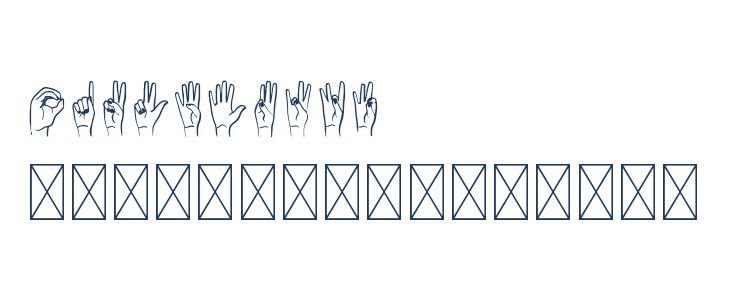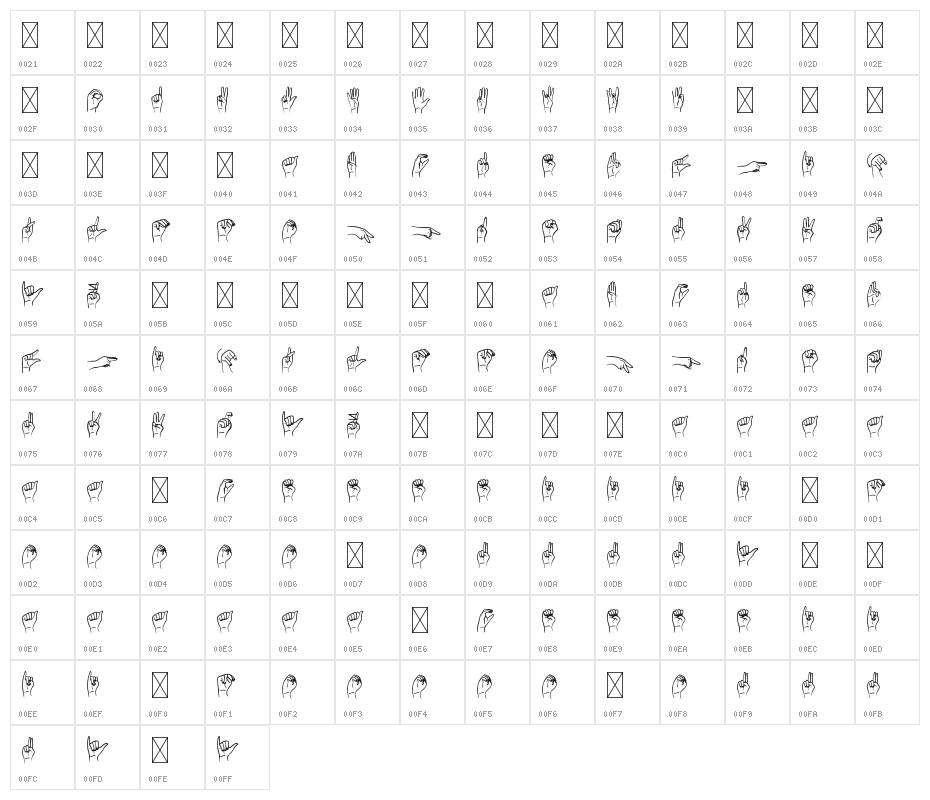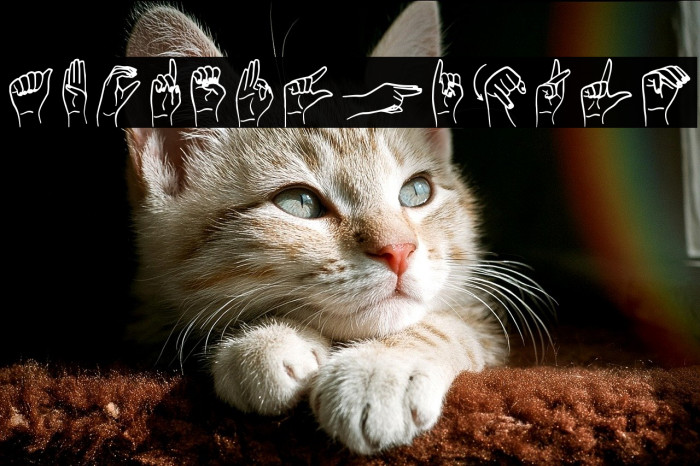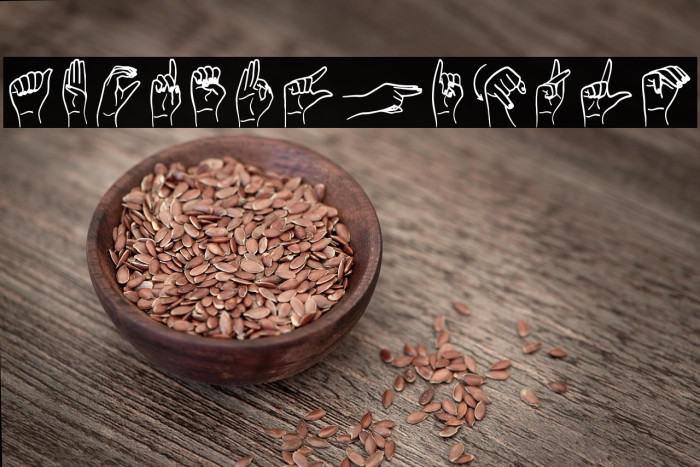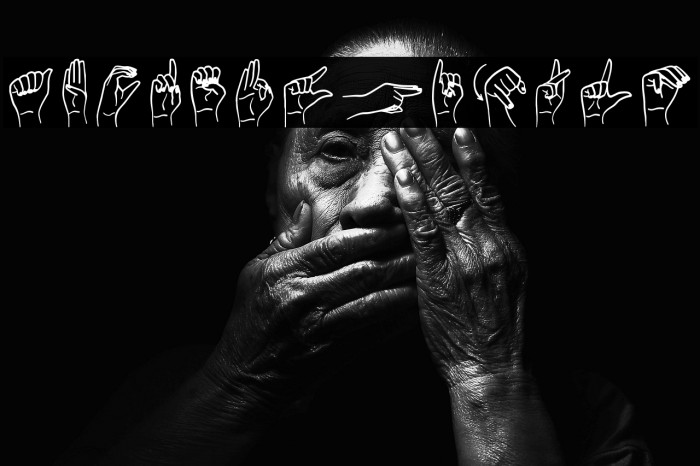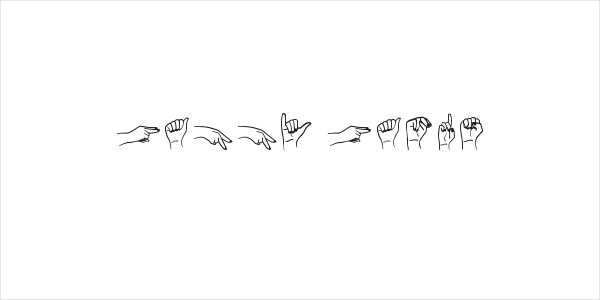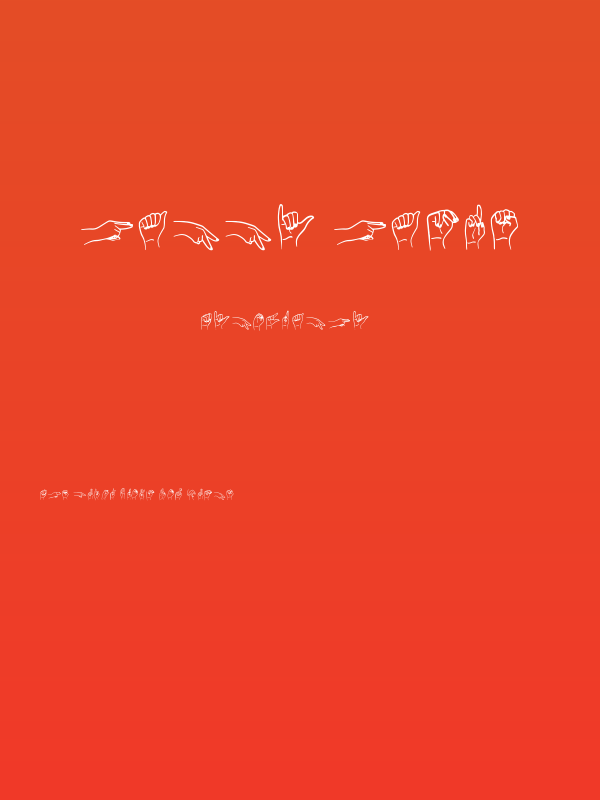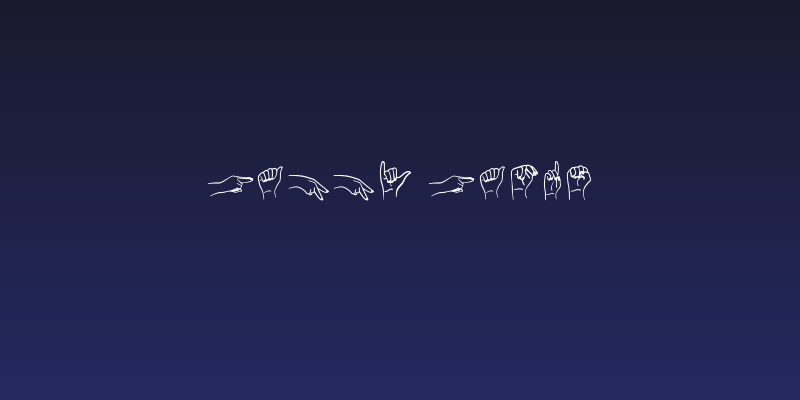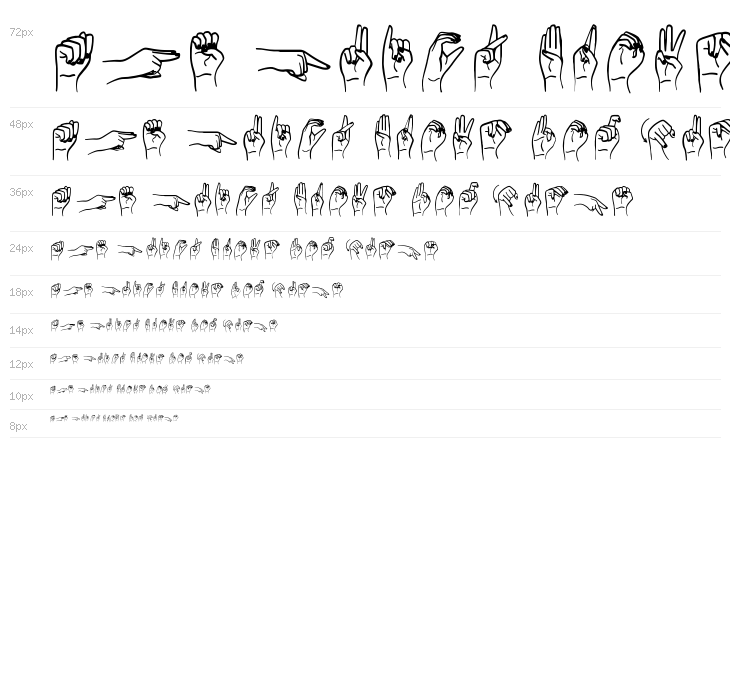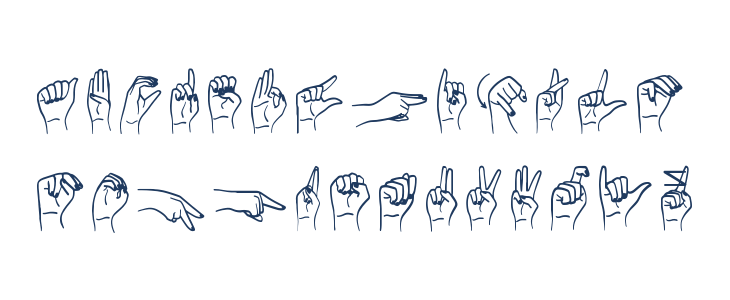
Happy Hands Font
Happy Hands Description
A playful, illustrative font composed of hand-drawn American Sign Language finger-spelling gestures for each letter and number, with expressive line work and clear, recognizable hand shapes.
| Overall Style | Playful, Illustrative, Educational |
| Use Case | Posters, Educational materials, Awareness campaigns, Display text |
| Proposed Projects | Educational materials, accessibility resources, posters, children's books, inclusive design, awareness campaigns. |